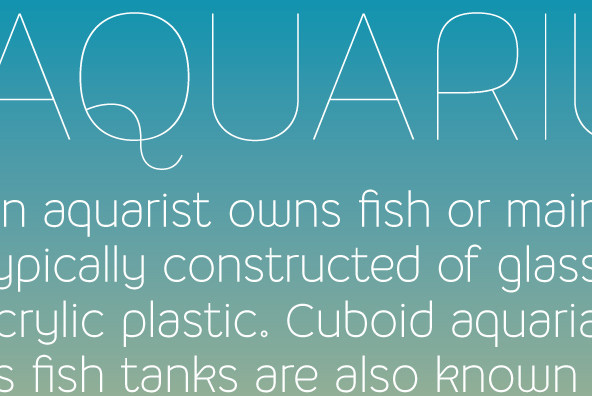
Malina Font
Malina Font is perfect for berry farm branding, organic fruit packaging, natural wellness products, sweet bakery communications, fresh market signage, healthy lifestyle marketing, artisanal jam labels, and wholesome advertising campaigns. This delicious typeface works beautifully in both digital applications and print media where natural sweetness and organic charm are essential design elements.
What makes Malina Font so exciting is its delightful interpretation of berry sweetness and natural goodness through tender letterforms that seem infused with the same fresh flavor and wholesome appeal that defines the most beloved summer fruit experiences. The font features sweet characters with berry-inspired proportions, organic curves, and natural details that create an immediate sense of freshness, health, and the pure satisfaction of nature's candy. Its wholesome personality and fruit heritage make it ideal for brands seeking to communicate natural goodness, healthy indulgence, and the simple pleasures of fresh, organic produce while appealing to audiences who value natural nutrition and wholesome living.
The Malina Font family includes multiple weight variations with different sweetness levels, along with organic alternates and berry-inspired ornamental elements. Each style maintains the typeface's natural character while offering comprehensive character sets including fresh numerals, wholesome punctuation marks, and special symbols designed to enhance natural communications and organic branding efforts across various healthy contexts.
This extraordinary typeface represents the perfect marriage of natural goodness and contemporary design functionality for organic food and wellness industries. Whether you're developing fruit farm identities, creating healthy product materials, or designing natural wellness campaigns, Malina Font Free Download provides the sweet authenticity and versatility needed to connect with health-conscious audiences. The font's berry appeal makes it particularly effective for organic farms, natural food companies, wellness brands, and businesses celebrating the pure joy and healthy satisfaction of fresh, natural produce and wholesome living choices.
The carefully crafted organic details and optimized natural performance in Malina Font ensure both wholesome authenticity and clear communication across all healthy applications. Its sweet presence makes it perfect for natural branding, organic marketing materials, and wholesome communications where its full berry character can create delicious connections with audiences seeking the fresh flavor, natural goodness, and healthy satisfaction that comes from choosing pure, organic, and naturally sweet lifestyle options.